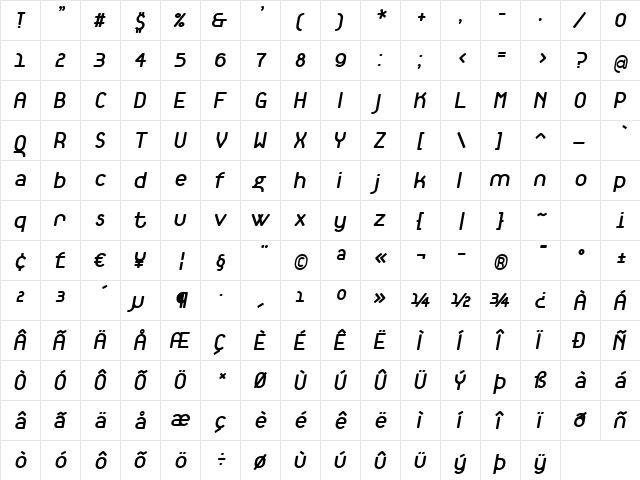
TantalusBoldItalic Regular
Design Context for TantalusBoldItalic Typeface
TantalusBoldItalic offers clean, dependable letterforms without strong stylistic allegiance, making it a practical choice for designers who need flexibility. The slanted form adds forward momentum and visual energy. The heavy weight commands attention and anchors typographic hierarchies.